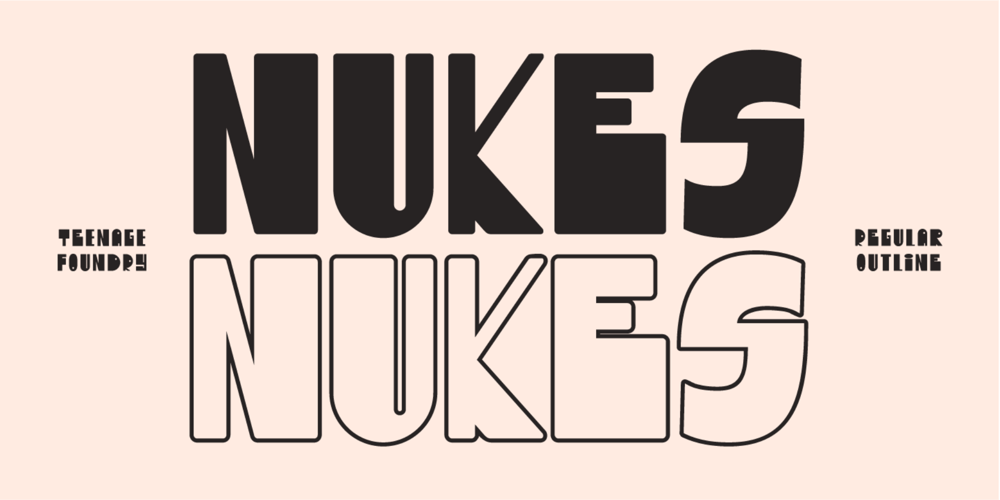
TF Nukes Font Family was designed by Miftahul Habib and published by Teenage Foundry. TF Nukes contains 2 styles and family package options. Introducing TF Nukes – the boldest display style font that will capture the attention of your audience and make your message stand out! This bold, strong font is perfect for headlines, titles, and any other text that needs to make a statement.A bold and striking font style will make your message impossible to ignore, while the bonus illustrations will add an extra layer of creativity to your design.Features: Uppercase, Lowercase, Numeral, Punctuation, Multilingual & Alternates.For any questions please contact me 🙂Thanks!